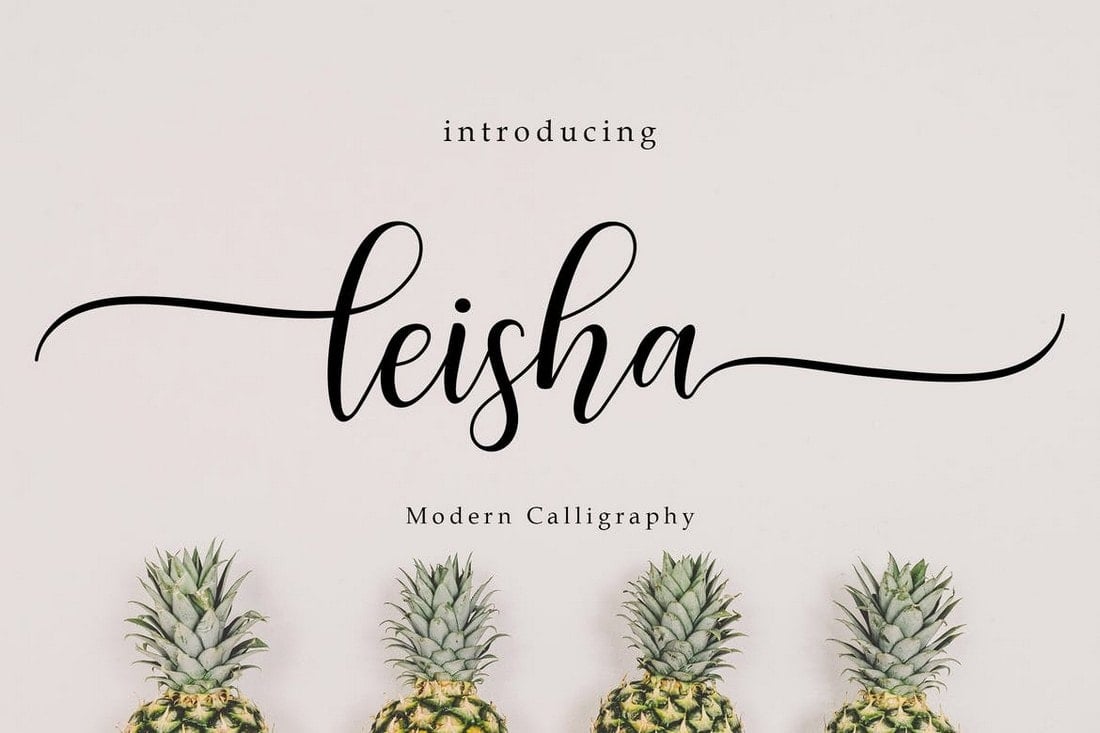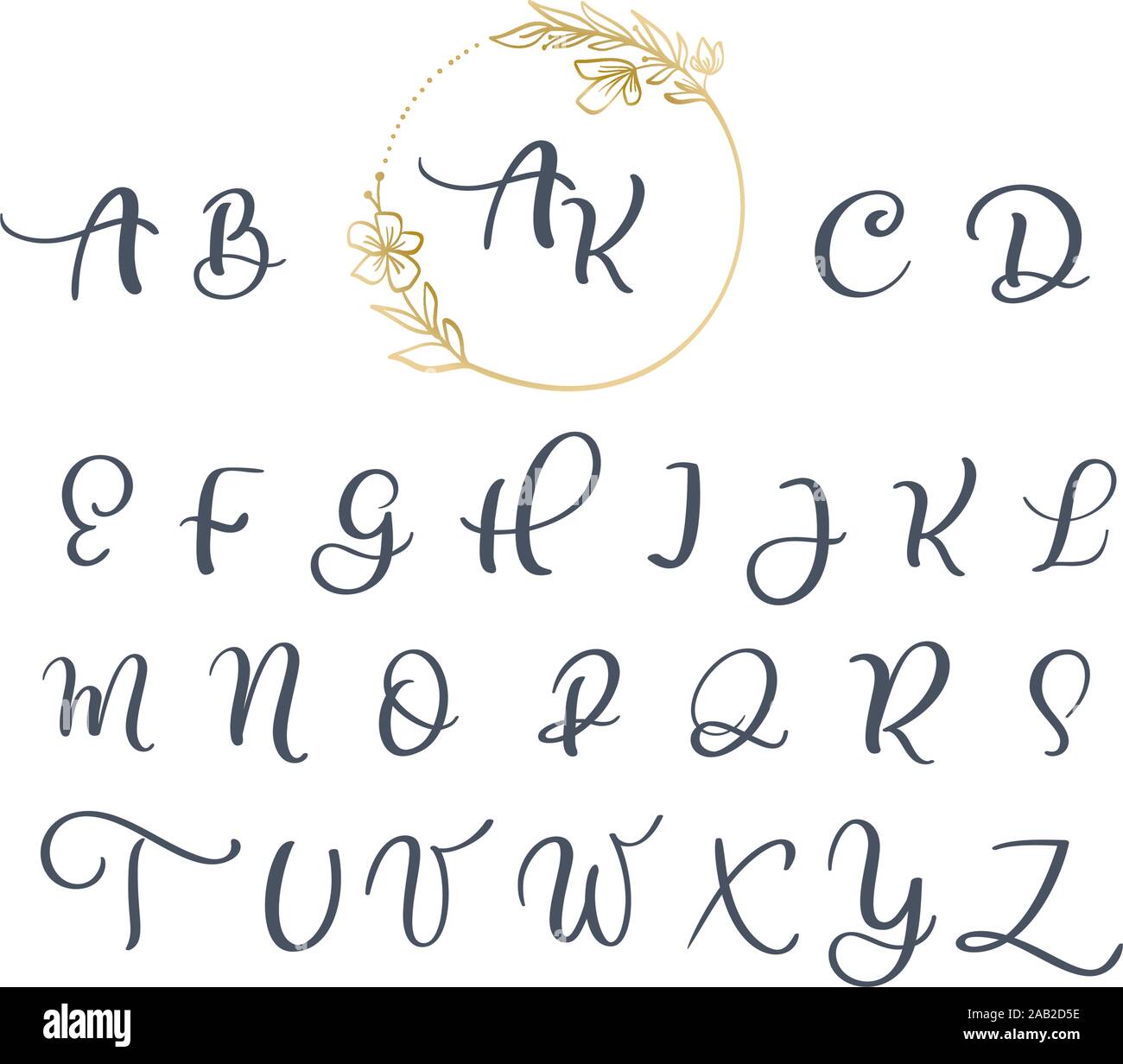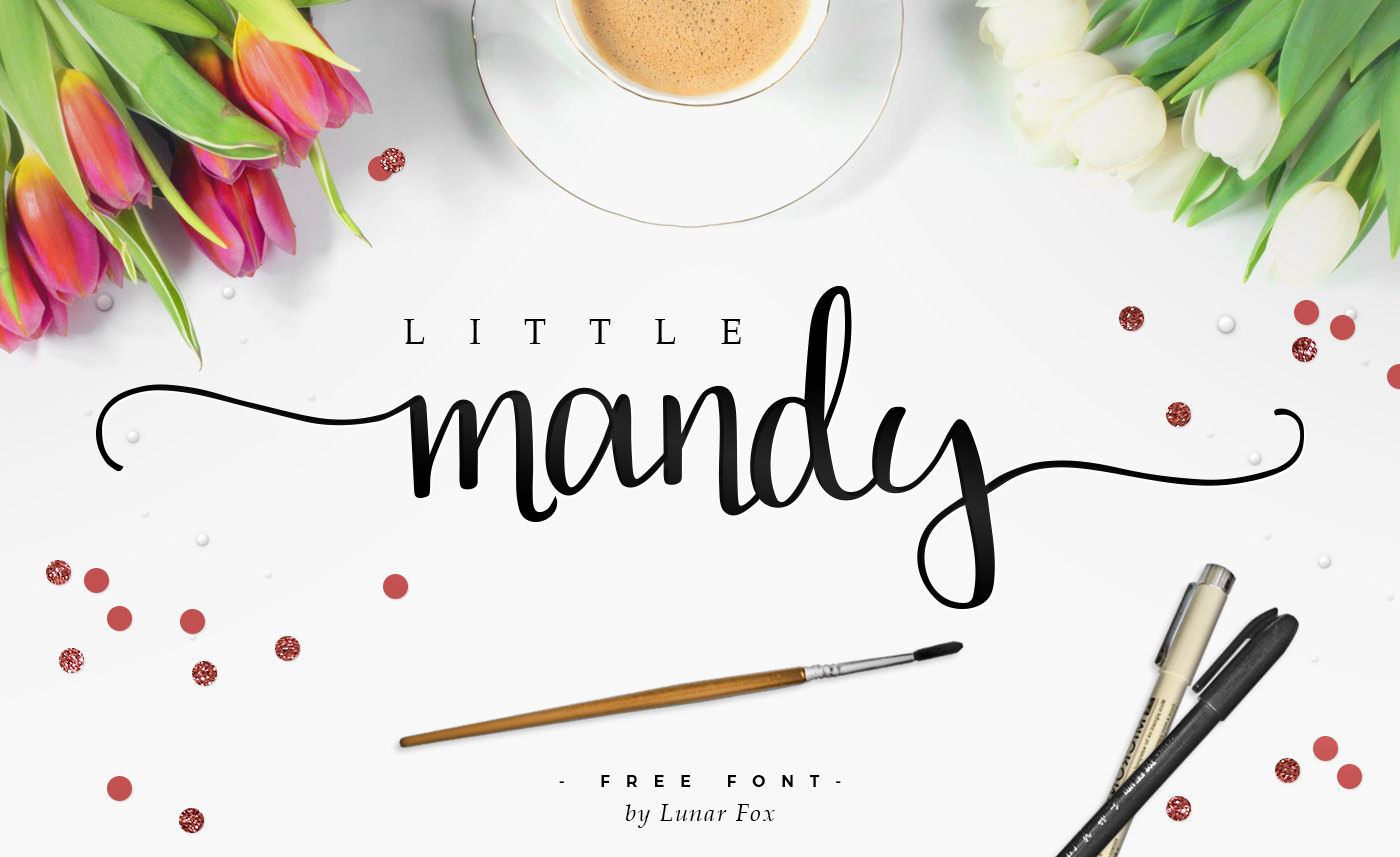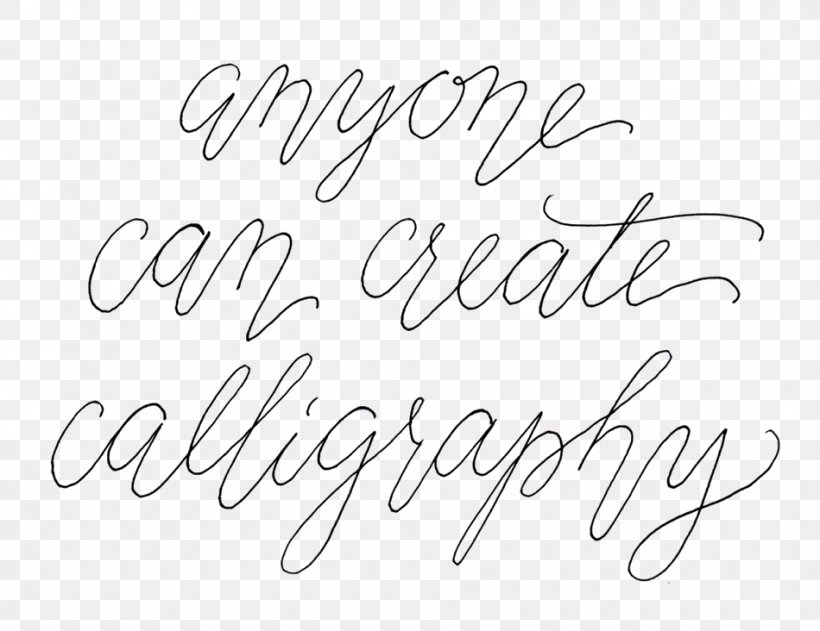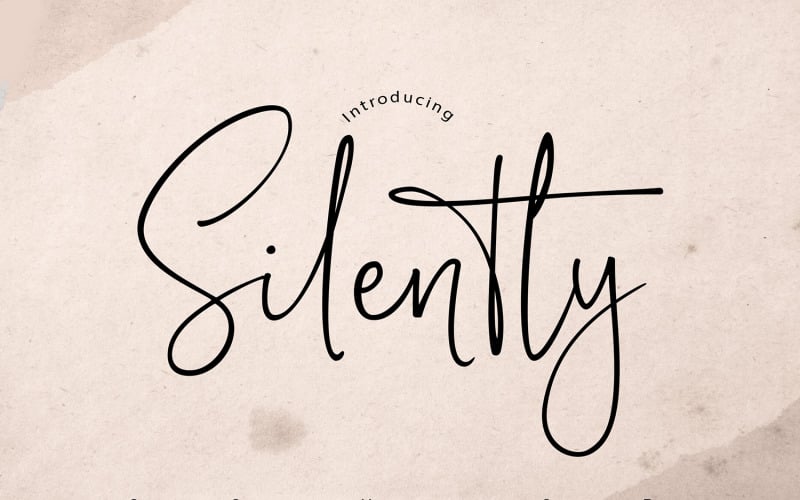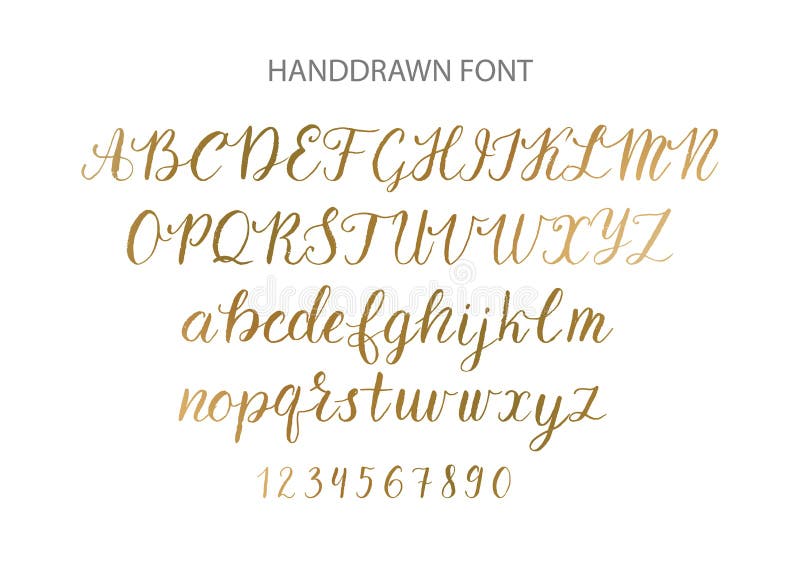
The writing is readable but is usually extravagant and embellished with flourishes. Personal Use Free 3979k downloads.
Calligraphy handwriting cursive fonts. Download them for use in. We have 332 free Cursive Calligraphy Modern Script Handwritten Fonts to offer for direct downloading 1001 Fonts is your favorite site for free fonts since 2001. Delight is a stylish calligraphy font with a cursive design.
Cursive fonts simply emulate cursive handwriting in which letters are usually connected in a slanted and flowing manner. Letters may be joined or unjoined. 1 font style from 1900.
Cursive fonts mimic the style of human penmanship where the letters flow together. We have 221 free Calligraphy Cursive Handwriting Fonts to offer for direct downloading 1001 Fonts is your favorite site for free fonts since 2001. 1 font style from 2600.
149 of 1052 families. However for different languages cursive writing can mean differently for example for eastern Asian languages like Chinese cursive writing focuses more on the formation and connectedness of strokes within an individual character while for Latin Cyrillic and Arabic languages cursive writing. Boisterous Signature Cursive Font.
The main sub-styles are traditional calligraphy and modern. See more ideas about calligraphy handwriting cursive lettering. The current Windows 10 Script typefaces include Brush Script MT Edwardian Script ITC Freestyle Script French Script MT Gigi Harlow Solid Italic Kunstler Script Lucida Calligraphy.
The cursive handwriting style is functional and intended to be used for everyday writing. Cartograph CF by Connary Fagen. For more artistic styles you will want to look at calligraphy or hand-lettering.
Calligraphy is an artistic writing style where the pressure is varied to create thick and thin lines all in a single stroke. As a bonus it comes with 34 creative brush strokes as well. Amora by Jen Wagner Co.